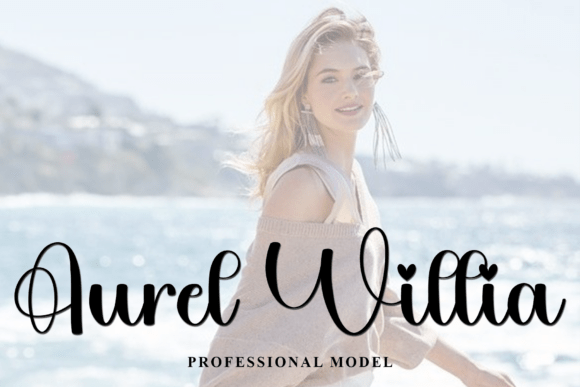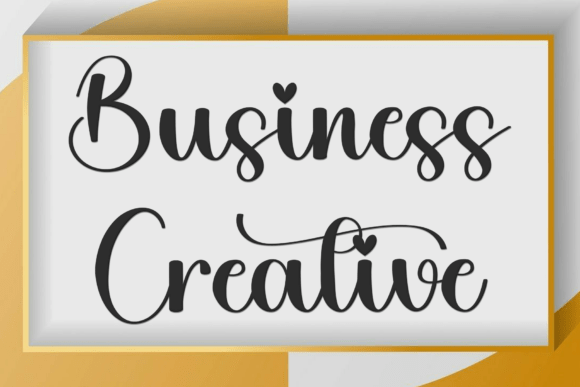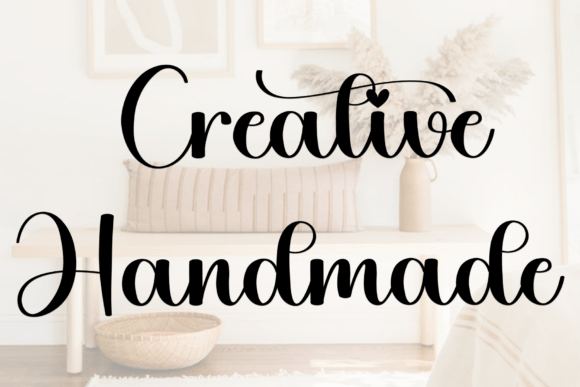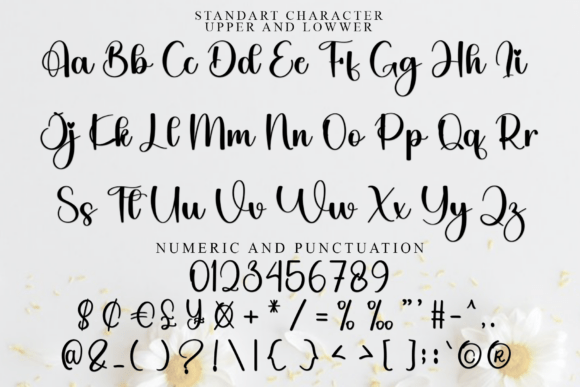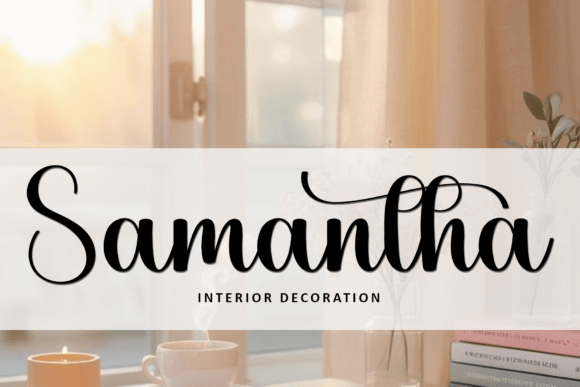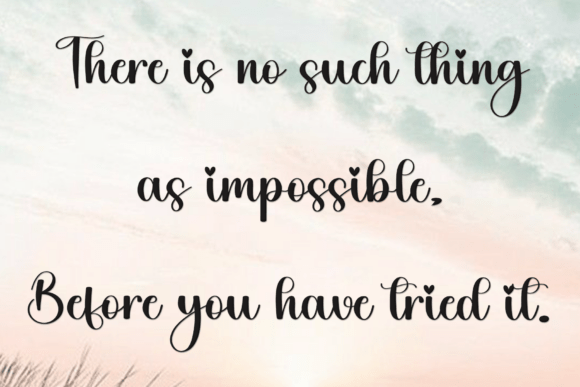
Unleash Your Inner Artist with the Perfect Holiday Font
Have you ever been brainstorming ideas for a holiday project, only to find yourself stuck on the perfect font? The pressure to create something unique and memorable can be overwhelming, but what if you had the perfect tool to bring your vision to life? This is where the Creative Holiday Font comes in – a beautiful and eye-catching typeface designed to add a touch of magic to your designs.
| 📌 Product Name | Creative Holiday Font |
With its soft, distinctive strokes and versatile character, this font is perfect for designers looking to add a personal touch to their work. Whether you’re creating holiday cards, gift tags, or packaging, the Creative Holiday Font is sure to make your designs stand out. Its compatibility with various applications, including Windows and open-source platforms, makes it a valuable addition to any designer’s toolkit.
Creative Holiday Font Key Features
- Unique Characteristics: Includes 100+ ornaments, 50+ swashes, and 30+ flourishes for added creative possibilities.
- Style Options: Offers 6 font styles: Regular, Bold, Italic, Bold Italic, Script, and Ornate, catering to diverse design needs.
Design Review: Creative Holiday Font
I recently had the chance to work with the Creative Holiday Font, and I must say it’s a mixed bag. On the one hand, there are some great features that make it a joy to use.
- ✨ Unique and festive design: The font is perfect for the holiday season, with a fun and playful feel that’s sure to add some cheer to your designs.
- ✨ High-quality vectors: The font files are well-designed and scalable, making it easy to use them in a variety of applications.
- ⚠️ Limited character set: The font only includes a limited set of characters, which may not be sufficient for more complex designs or languages.
- ⚠️ Not suitable for body text: The font is best used for headlines and titles, as it can be difficult to read in larger blocks of text.
Overall, I would say that the Creative Holiday Font is a great choice for holiday-themed designs, but it may not be the best option for more general use. With a little creativity and planning, it can be a valuable addition to your design toolkit.
Experiment with different font sizes and colors to create a visually appealing design. Use the font in combination with other festive elements, such as holly or snowflakes, to create a cohesive holiday theme.
The ‘Creative Holiday Font’ is perfect for creating festive invitations, holiday cards, and social media graphics. It’s also great for adding a touch of holiday cheer to your website, blog, or email headers.